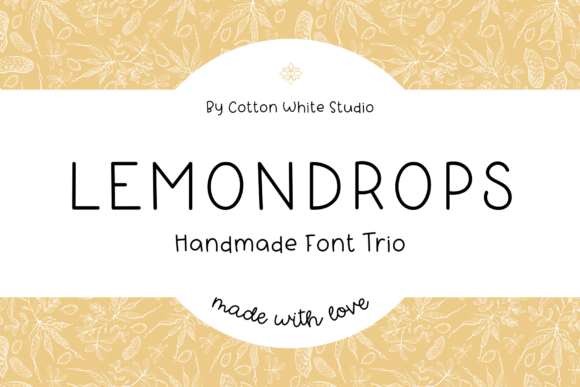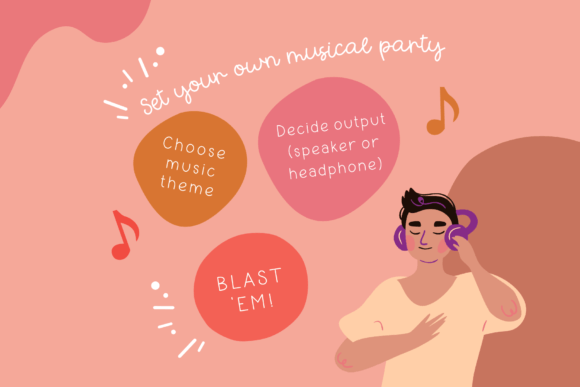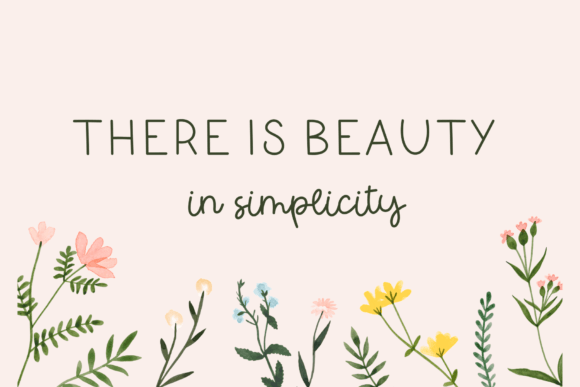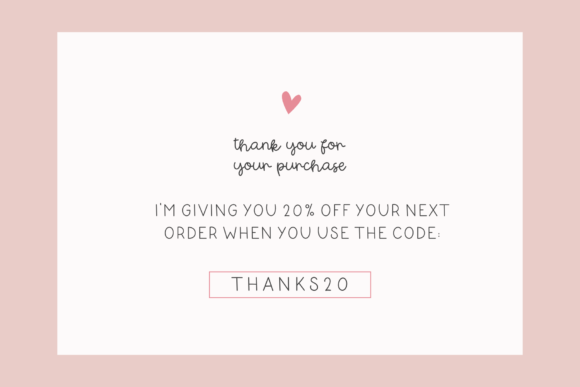
Lemondrops Trio Font
About the Lemondrops Trio Font
Discover the charm of Lemondrops Trio Font. This font is a perfect blend of modern aesthetics and classic appeal. Introducing a delightful and endearing hand-lettered font trio designed to bring a touch of charm to any project. This perfect triple is ideal for creating a casual and inviting atmosphere in various applications, including greeting cards, illustrations, quotes, quaint branding, book covers, children’s books, packaging, and countless other creative endeavors.
Let your imagination run wild as you explore the endless possibilities that await with this delightful and whimsical typeface combination.
Lemondrops Trio Font Usage Examples
Lemondrops Trio Font Example